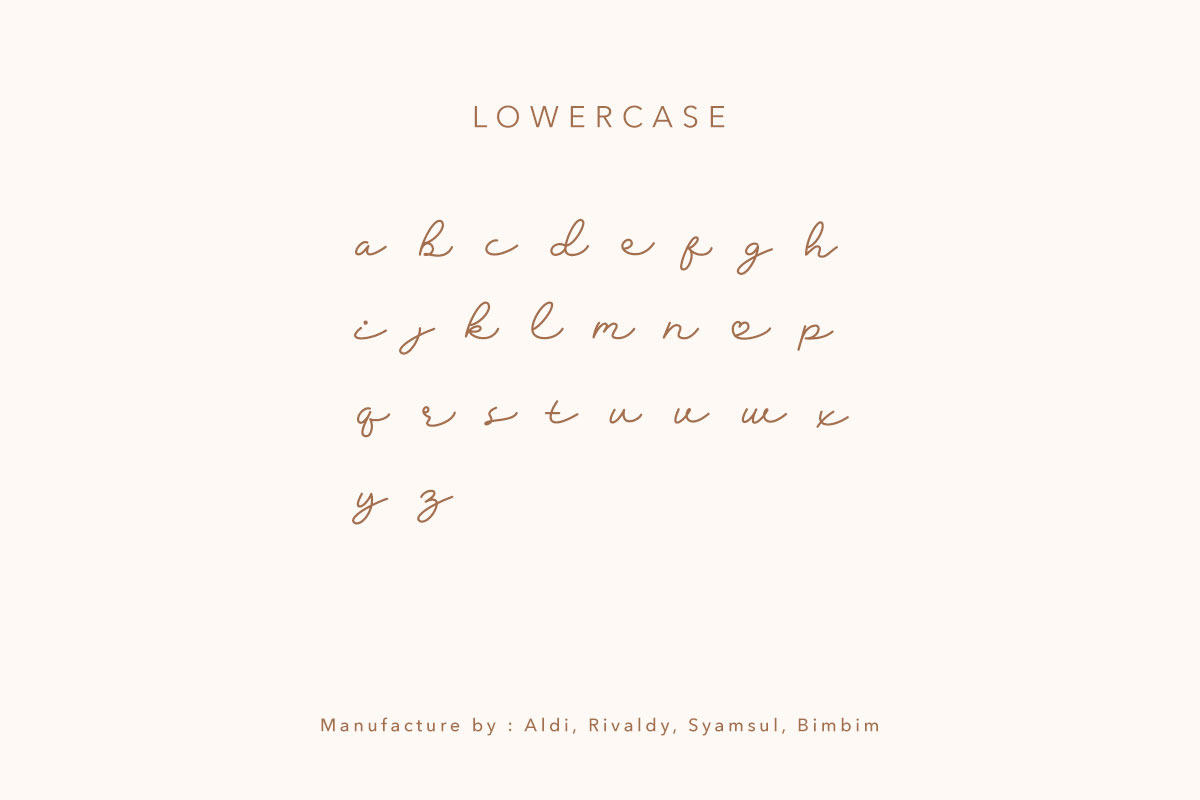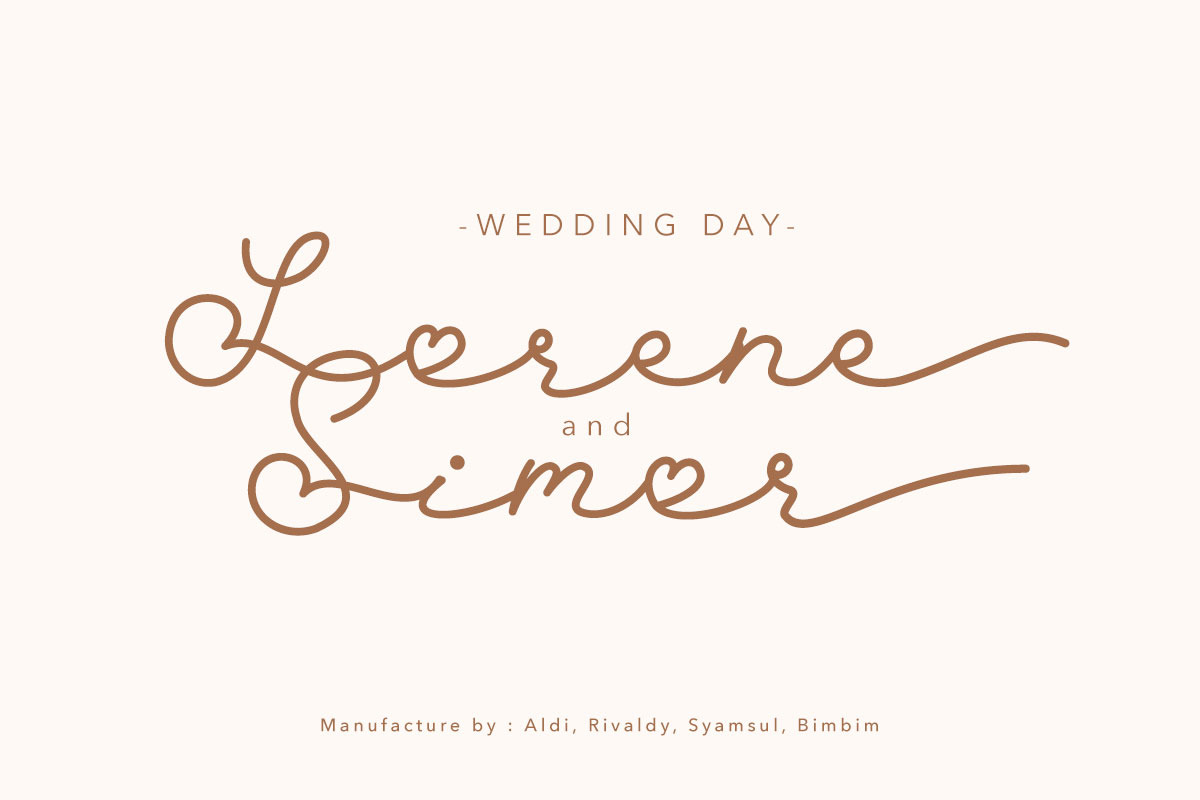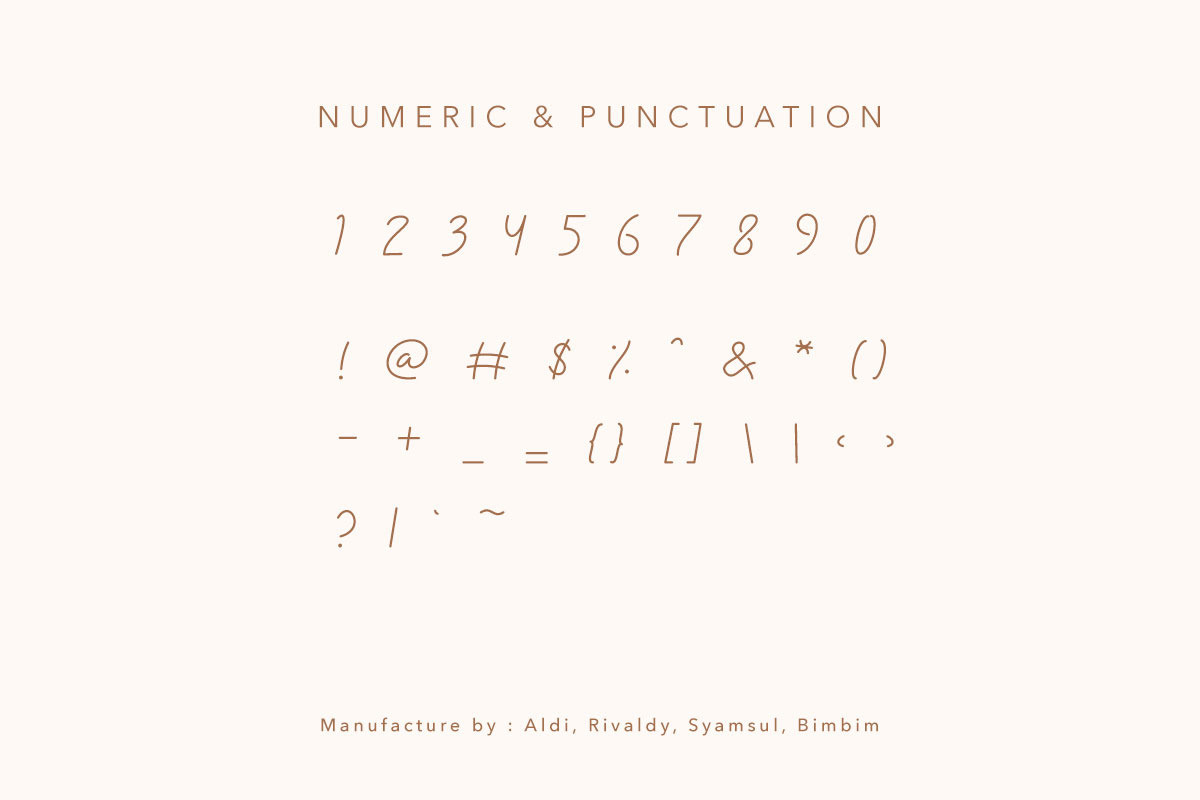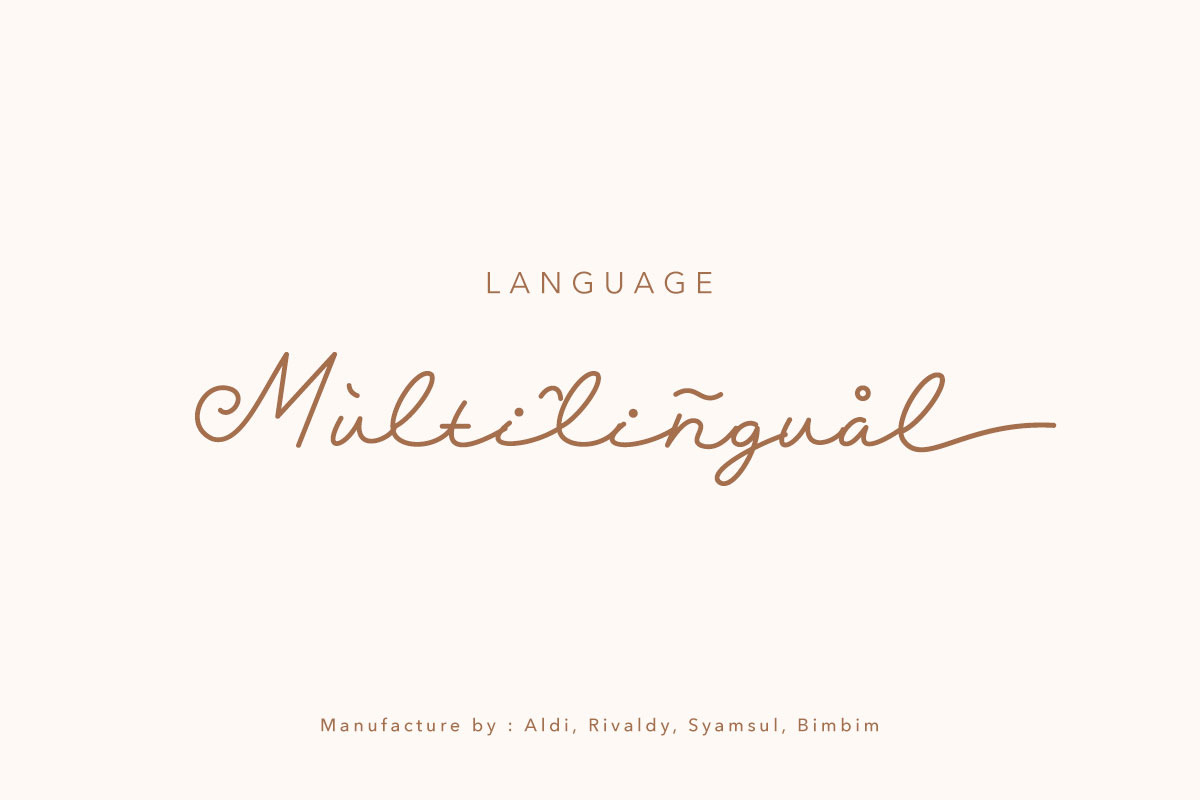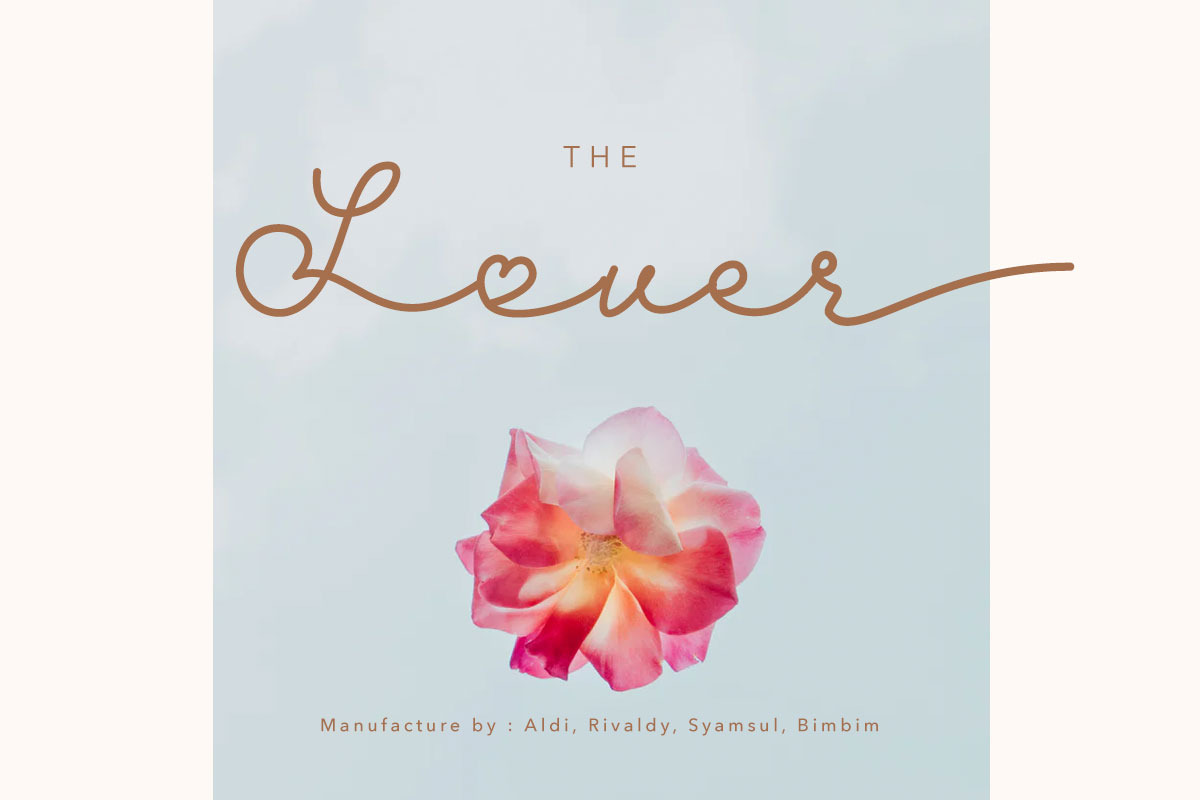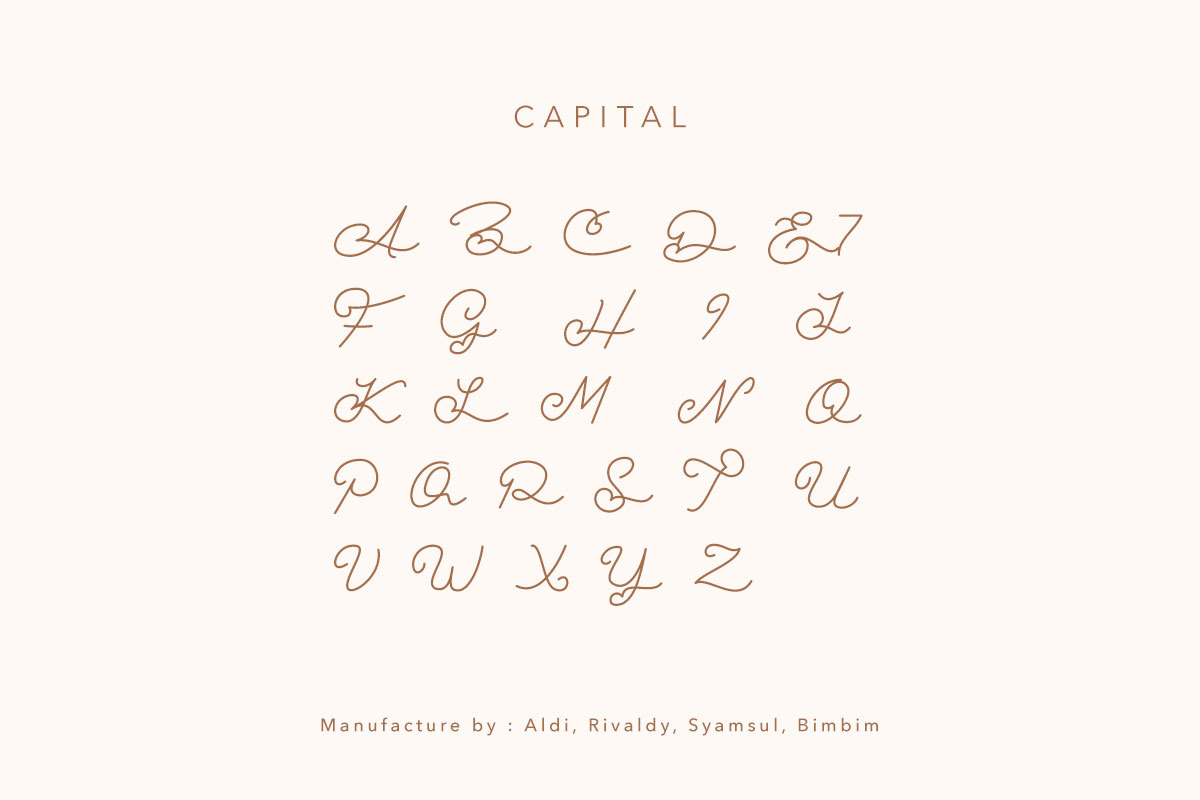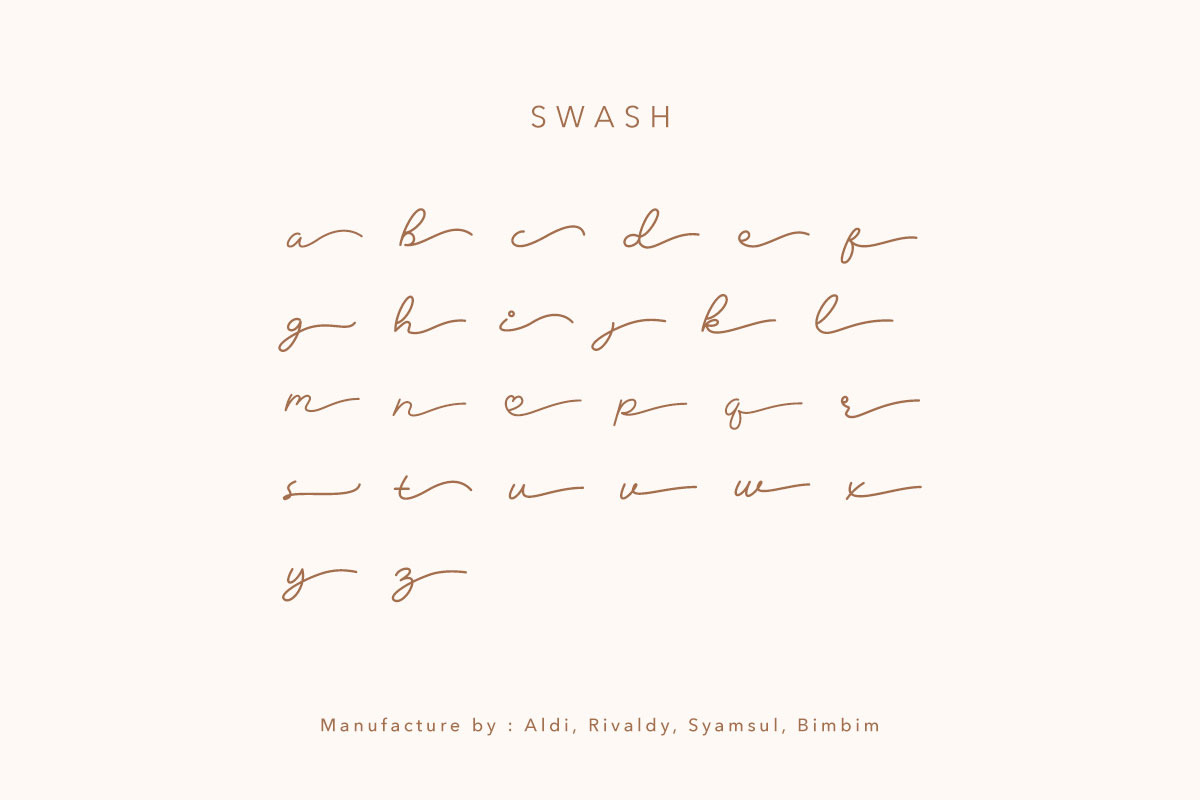
Hilove Script Love Font
Bismillah, Introduction Hilove - Modern Love Script Font
Beauty Handwriting font, clean and mindful , it combine in one font, use this font for anything beauty place for your logo, headline, cover book, magazine and many more
Hilove Numeral & Punctuation
Hilove Language Style